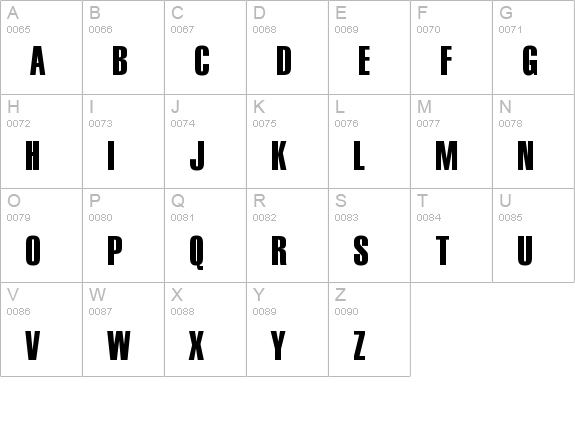
Jackson Regular Font Details
Jackson Regular is the standard, neutral variant in the Jackson typeface family \xE2\x80\x94 well suited to general body text, paragraphs, and standard typographic work.
Jackson Regular is a versatile and timeless font that exudes elegance and sophistication. Its clean lines and classic letterforms make it a perfect choice for a wide range of design projects, from branding and logos to invitations and headlines. With its balanced proportions and subtle curves, Jackson Regular effortlessly captures attention and adds a touch of professionalism to any composition. This font is not only visually appealing but also incredibly user-friendly. Its legibility ensures that your message will be easily understood by readers, while its versatility allows for seamless integration into various design styles. Whether you're aiming for a sleek and modern look or a more traditional and refined aesthetic, Jackson Regular will deliver exceptional results. One of the most enticing features of Jackson Regular is that it is freely available to download at FontsMarket.com. This means that you can add this remarkable font to your collection without any cost, making it an accessible choice for designers of all skill levels. By offering this font for free, FontsMarket.com aims to support the creative community and provide resources that inspire and empower designers to bring their visions to life. So, why wait? Enhance your designs with the timeless beauty of Jackson Regular. Download this font for free at FontsMarket.com and unlock a world of possibilities for your projects. With its versatility, elegance, and accessibility, Jackson Regular is a must-have addition to any designer's toolkit.